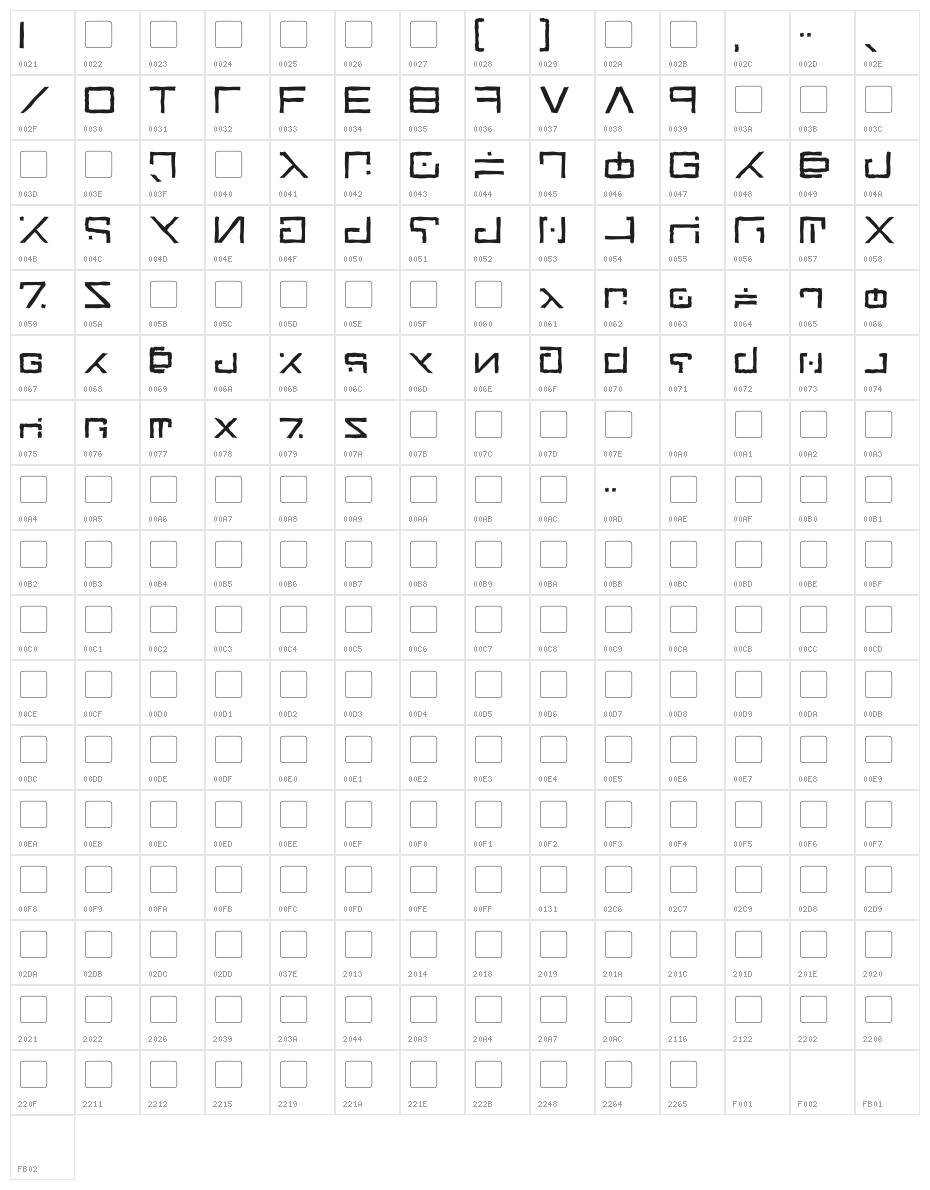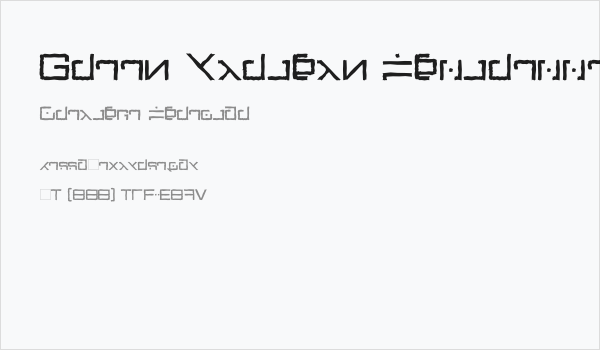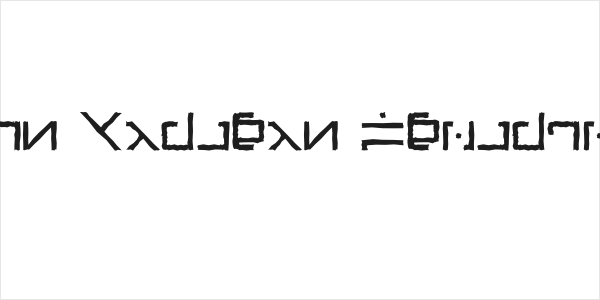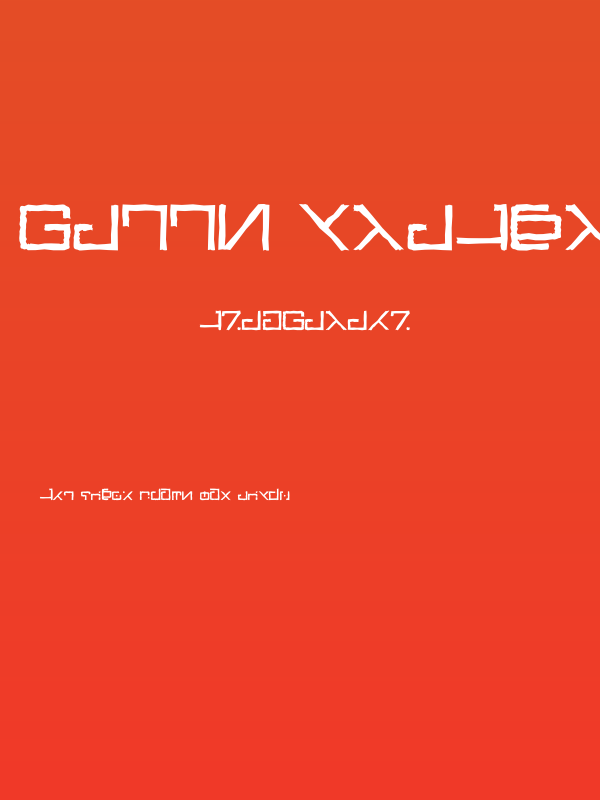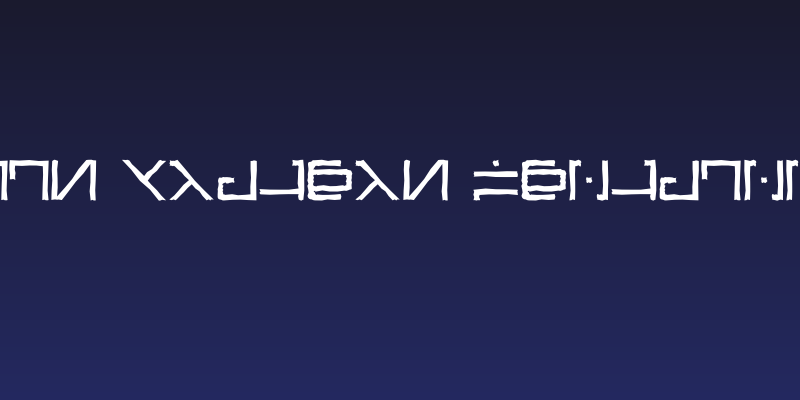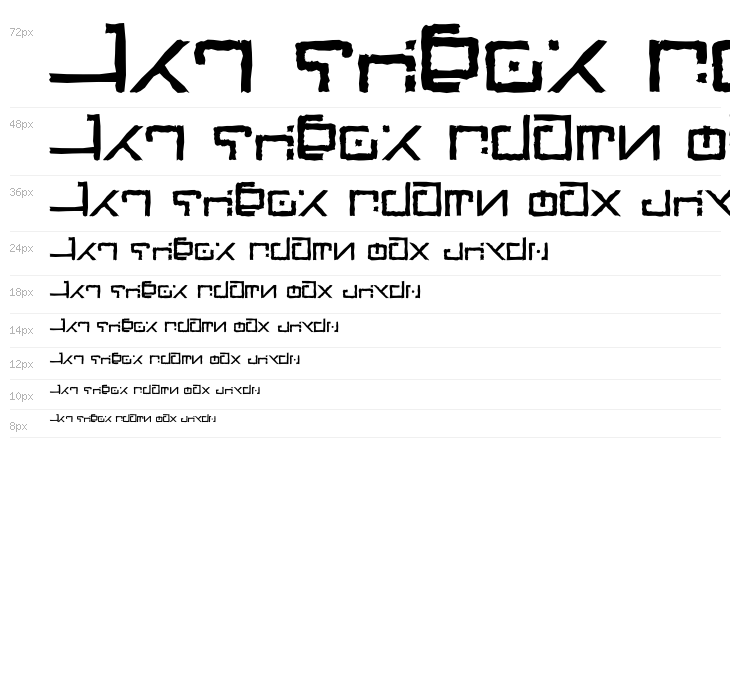
Green Martian Distressed Font
Green Martian Distressed Description
This font features a distressed, futuristic style with a unique, alien-like appearance. The characters are bold and angular, with a rough, textured finish that gives them a worn, weathered look. The design incorporates sharp edges and geometric forms, creating a sense of mystery and otherworldliness. Each letter is distinct, with varying levels of distress that add to the overall aesthetic. The font's unconventional style makes it stand out, ideal for projects that require a sci-fi or extraterrestrial theme.
| Overall Style | Futuristic, Distressed |
| Proposed Projects | Ideal for sci-fi themed posters, video game titles, movie graphics, and alien-themed merchandise. |